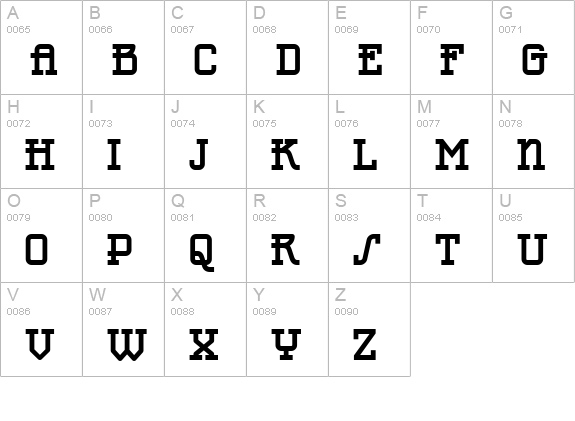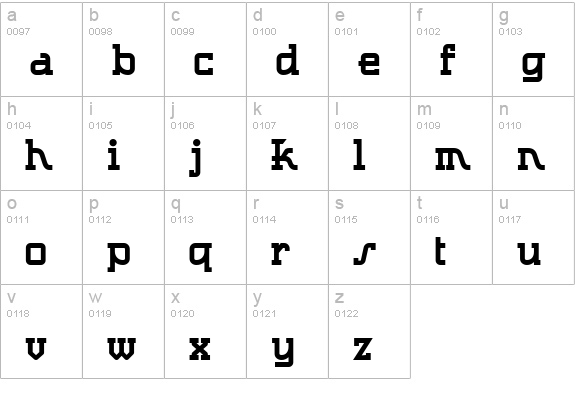
Rocketman XV7 Bold Font Details
Rocketman XV7 Bold is a strong, high-contrast variant in the Rocketman typeface family \xE2\x80\x94 well suited to headlines, attention-grabbing titles, and strong calls-to-action.
Rocketman XV7 Bold font is a striking and modern typeface that exudes confidence and power. Its bold and dynamic design makes it perfect for grabbing attention and making a statement. The sharp edges and clean lines of this font give it a futuristic and edgy feel, making it ideal for projects that require a strong and impactful look. What's even better is that Rocketman XV7 Bold font is available for free download at FontsMarket.com. This means that you can easily add this eye-catching font to your collection without having to spend a dime. Whether you're working on a poster, logo, branding, or any other design project, Rocketman XV7 Bold font is sure to make a bold and memorable impression. Download it now and elevate your designs with this powerful and versatile typeface.